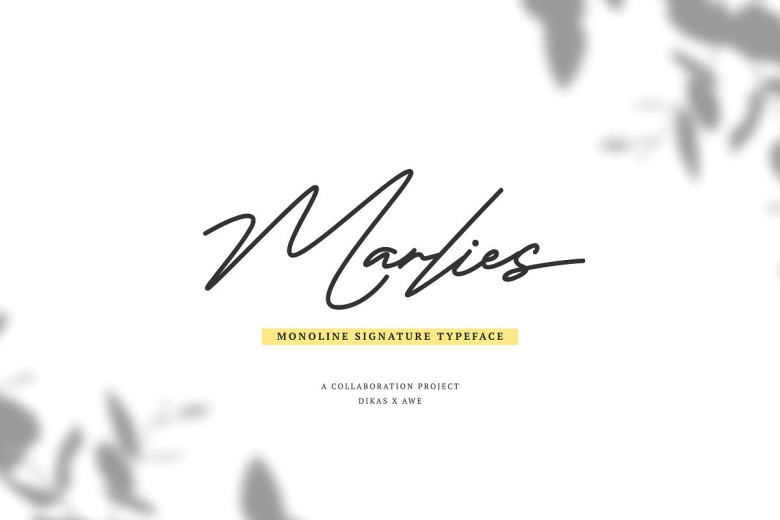
Marlies Signature Font
Have you ever used a handwritten font on your design project? This is a font that really characterizes from the handwritten style. We introduce ‘Marlies Monoline Signature‘ just for you. Marlies designed by DikasStudio. Marlies Signature Font is a monoline signature typeface with handlettering style that very Suitable and applicable to create logo branding, typography design, christmas card, branding, logos, product packaging, invitation, qoutes, t-shirt, label poster etc.